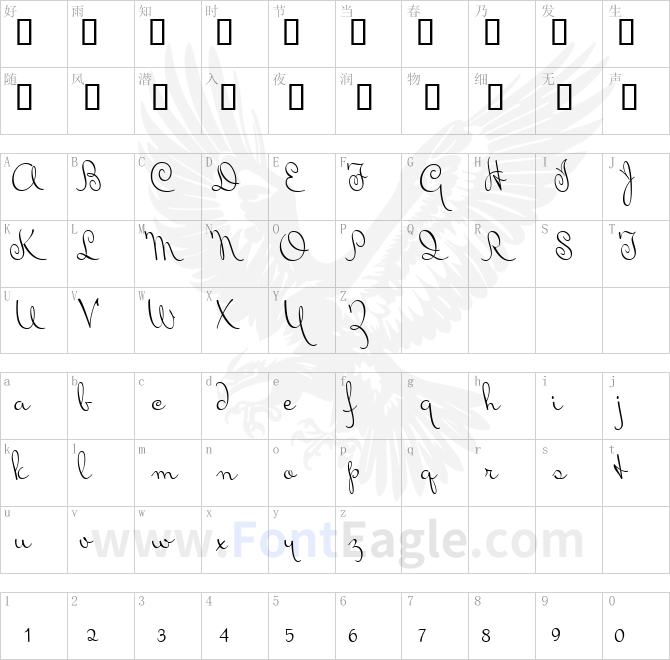
- Font name:Mrs Von Eckley
- Font Subfamily ID:Macromedia Fontographer 4.1.5 Mrs Von Eckley
- Font Full Name:Mrs Von Eckley
- Font Version:Macromedia Fontographer 4.1.5 6/24/04
- Postscript:MrsVonEckley
- Font Copyright:Copyright (c) 2004, SUDTIPOS. Expanded and digitized from the Bluemlein Script collection by Alejandro Paul. All rights reserved.